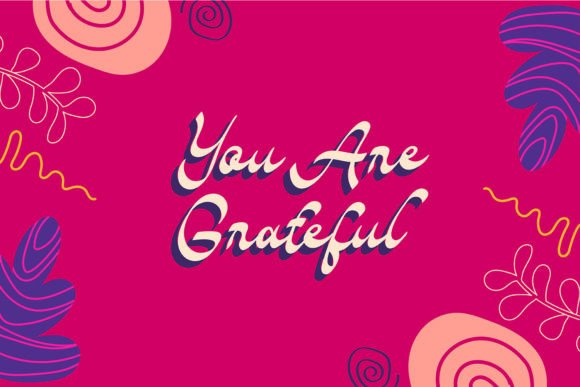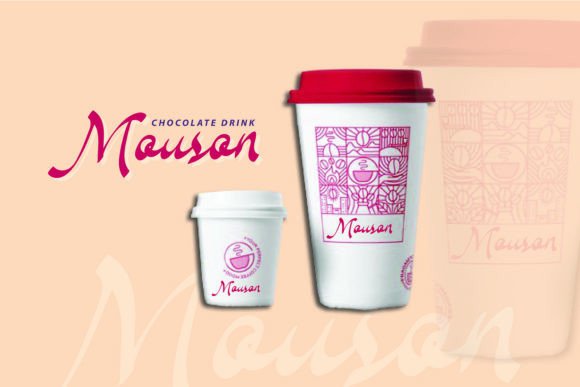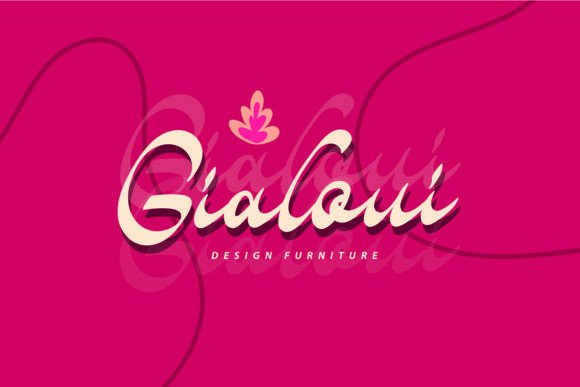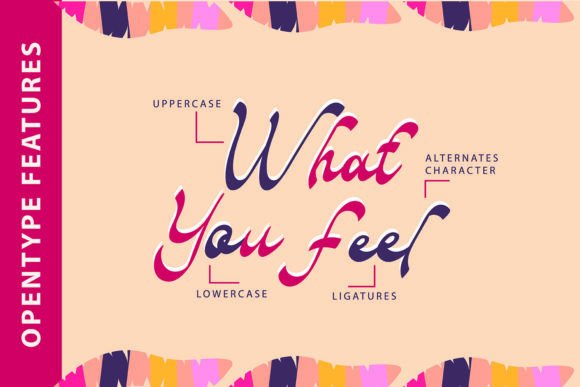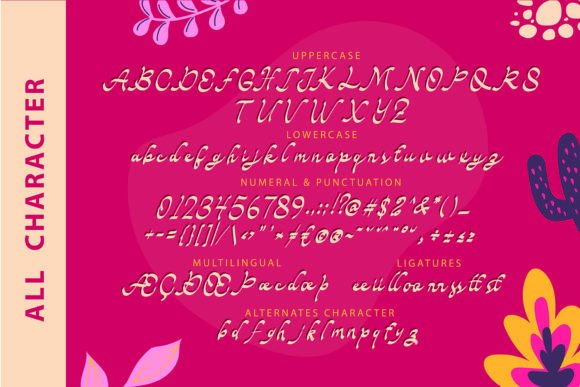
Introduction to Hanfisley Font Font
Fonts play a crucial role in design, and the Hanfisley Font font is a typeface that brings both character and versatility to any project. Whether you’re working on a branding project, a website, or a print design, the Hanfisley Font font offers a unique style that can elevate your work.
Hanfisley is a romantic and stylish script font perfect for any design project.
Its organic and natural strokes add a unique and sensual touch to your text Its graceful curves create an atmosphere of elegance and beauty, perfect for wedding invitations or any romantic occasion.
Key Features of Hanfisley Font Font
Why Choose Hanfisley Font Font?
The Hanfisley Font font is more than just a typeface – it’s a design tool that helps you communicate your message with style and clarity. Its unique character set and versatile design make it suitable for a wide range of applications, from elegant invitations to bold headlines.
With its carefully crafted letterforms and balanced proportions, the Hanfisley Font font ensures readability and visual appeal across all mediums.
What makes Hanfisley Font font special?
The Hanfisley Font font stands out with its unique design, exceptional readability, and versatility across various design applications.